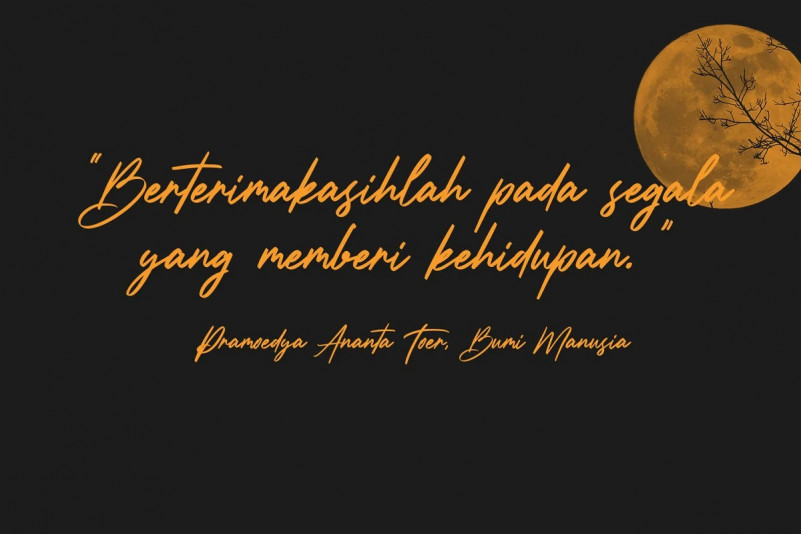
Kyliewest Font
Kyliewest Script Font is a signature script font. With regular felt-tip stroke, fun character with a bit of ligatures. To give you an extra creative work. Kyliewest font support multilingual more than 100+ language. This font is good for logo design, Social media, Movie Titles, Books Titles, a short text even a long text letter and good for your secondary text font with sans or serif. Make a stunning work with Kyliewest font.